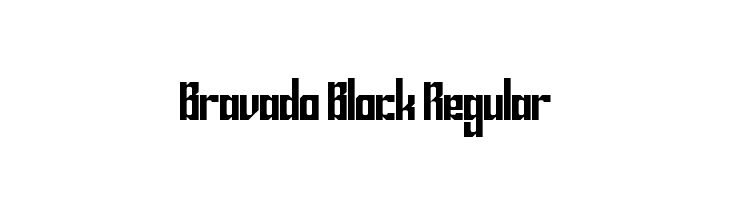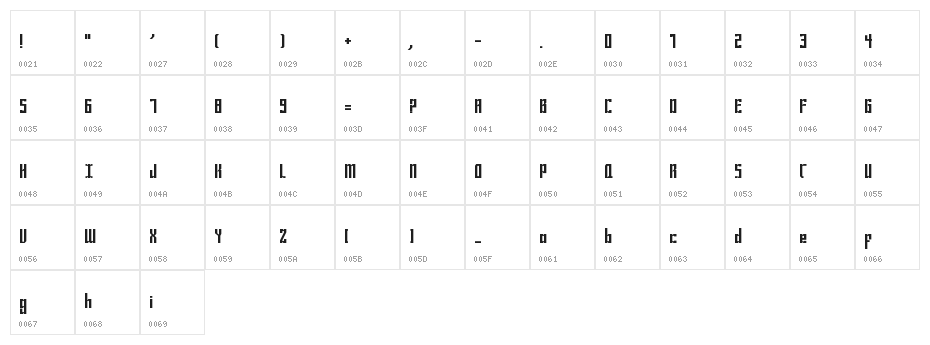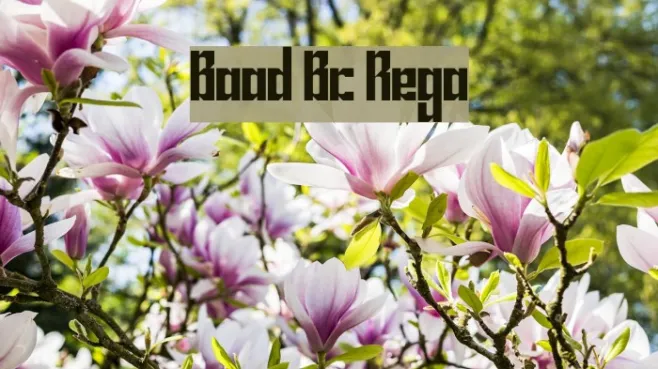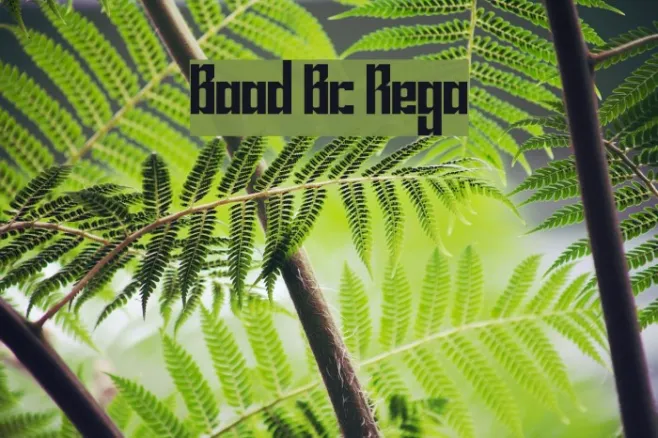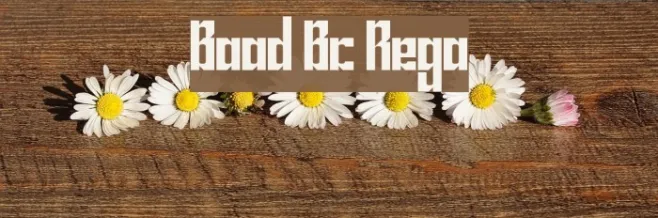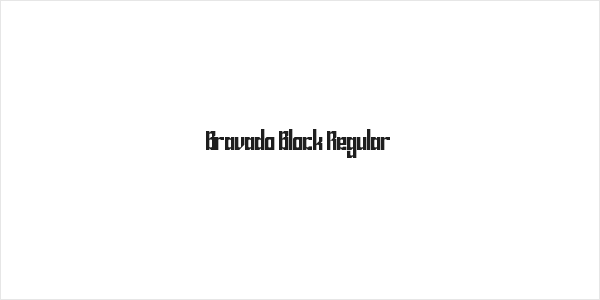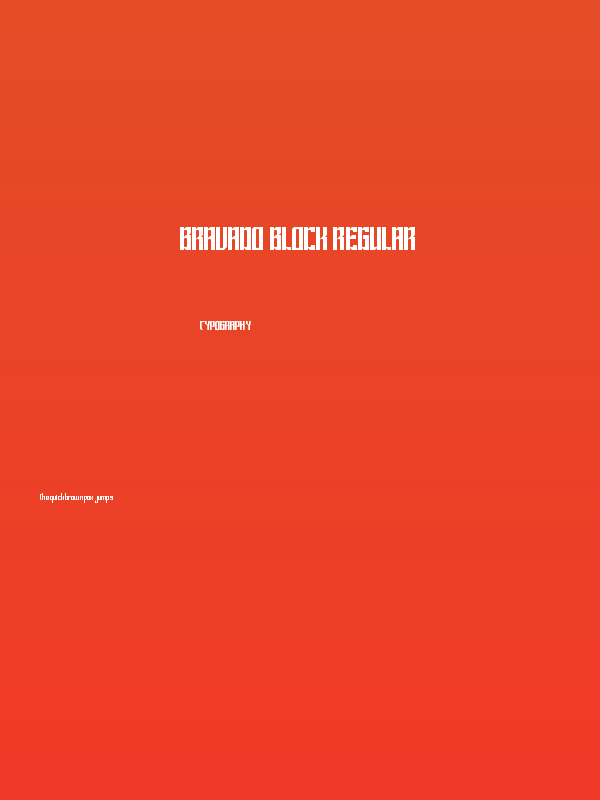
Bravado Block Regular Font
Bravado Block Regular Description
This font features a bold, geometric design with a strong presence. The characters are constructed with thick, block-like strokes, creating a sense of solidity and impact. The uppercase letters are particularly striking, with a uniform height and width that emphasizes their boldness. The lowercase letters maintain the same blocky aesthetic, ensuring consistency throughout the typeface. Numbers and special characters are designed to match the overall style, providing a cohesive look. The font's distinct, angular shapes make it ideal for attention-grabbing headlines and titles.
| Proposed Projects | Ideal for posters, logos, branding materials, and any design requiring a bold statement. |